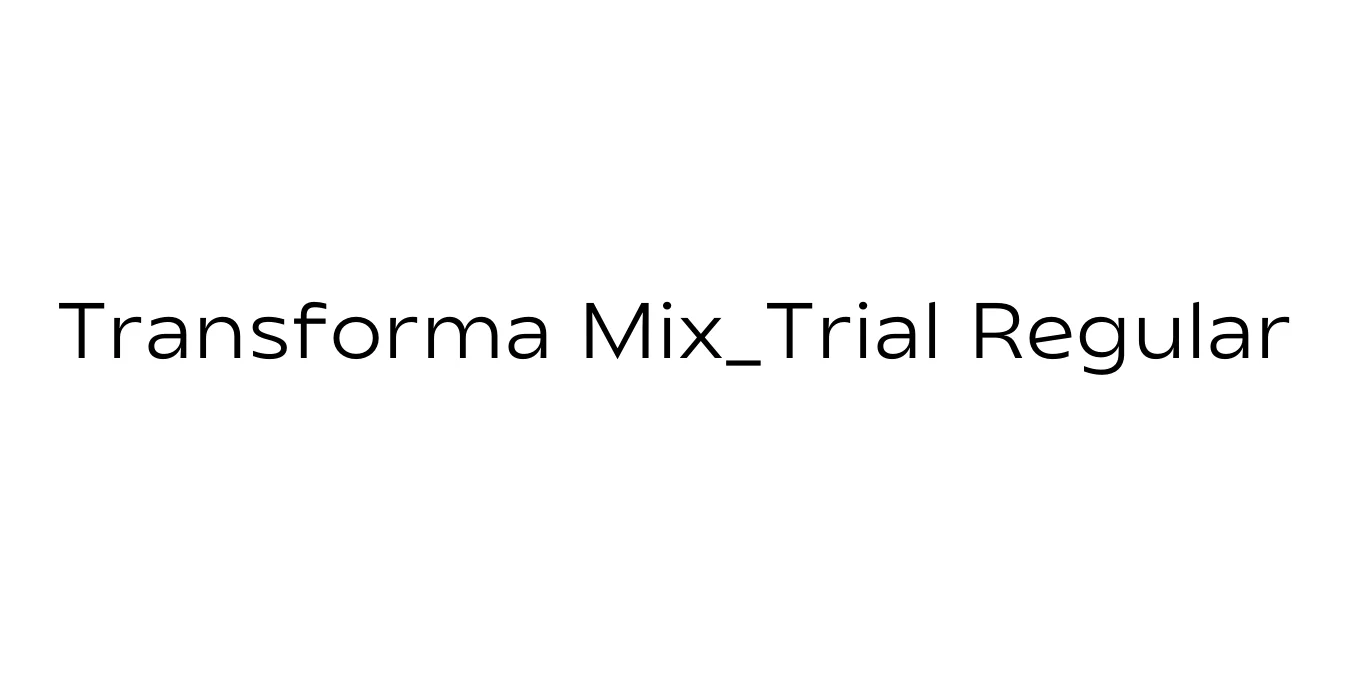
Transforma Mix_Trial Regular
Designed by Berton Hasebe
| Category | Sans Serif / Hybrid |
| Designer | Berton Hasebe |
| Similar Fonts | Gotham, Akzidenz-Grotesk, Input Sans, Graphik |
Transforma Mix is part of a larger, innovative typeface system designed by Berton Hasebe for Commercial Type. The project represents a deep exploration into the capabilities of variable font technology, blending contrasting structural elements from sans-serif, serif, and slab-serif traditions into a unified, contemporary "mix." This design approach allows for a highly adaptable aesthetic that can shift from mechanical and rigid to warm and humanistic depending on the weight and style used.
The Regular trial version showcases the font's exceptional balance and versatility. It is engineered to function as a dependable workhorse for modern branding, offering a distinct visual voice that feels both futuristic and grounded. Its clear construction and unique character shapes make it particularly effective for digital interfaces and high-end editorial projects where precision and personality are equally important.
Transforma Mix_Trial Regular Best Uses
Perfect for modern tech companies and startups looking for a unique, identifiable brand identity.
Excellent for headlines, pull quotes, and subheaders in contemporary digital or print magazines.
Highly readable for user interfaces and stylized web content requiring a sophisticated look.